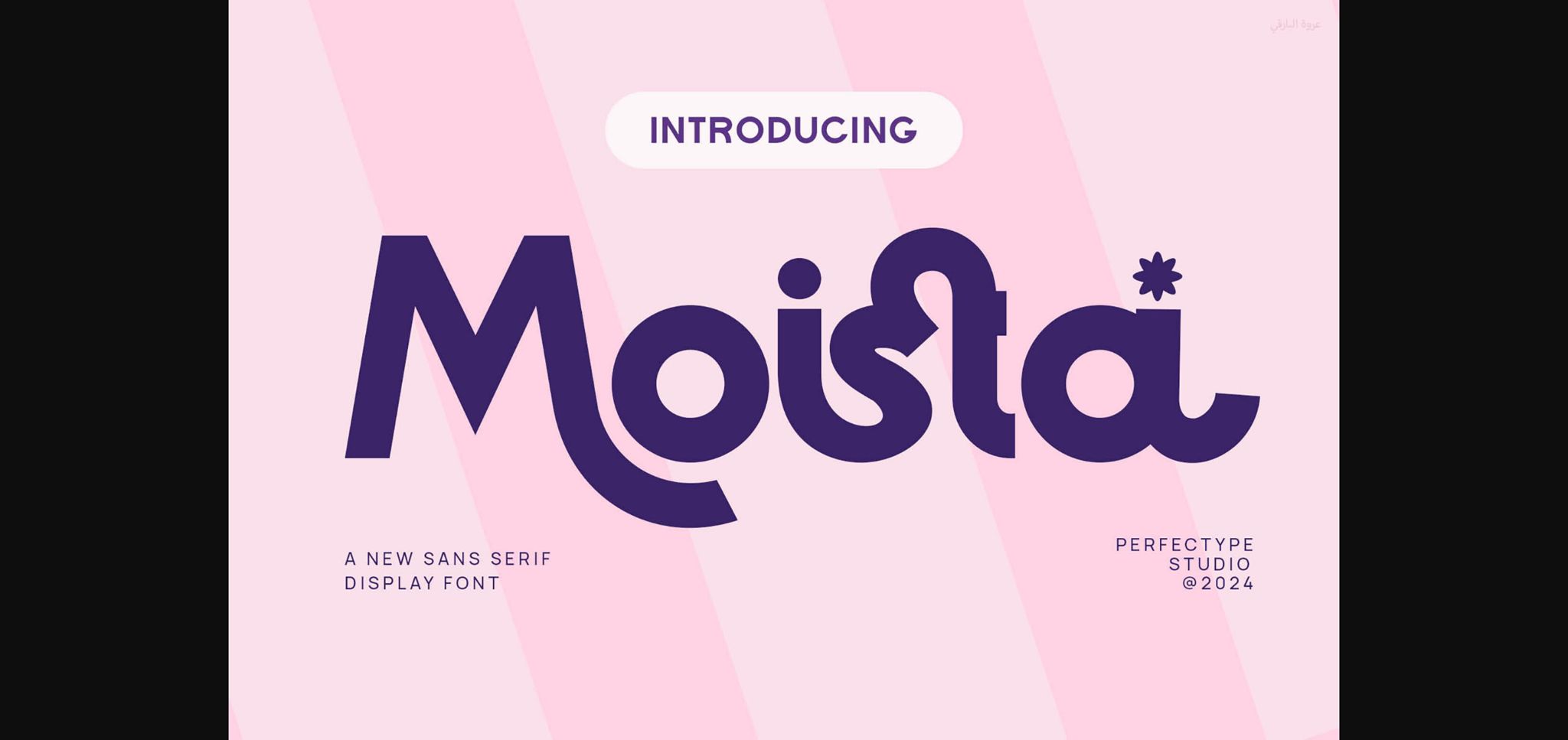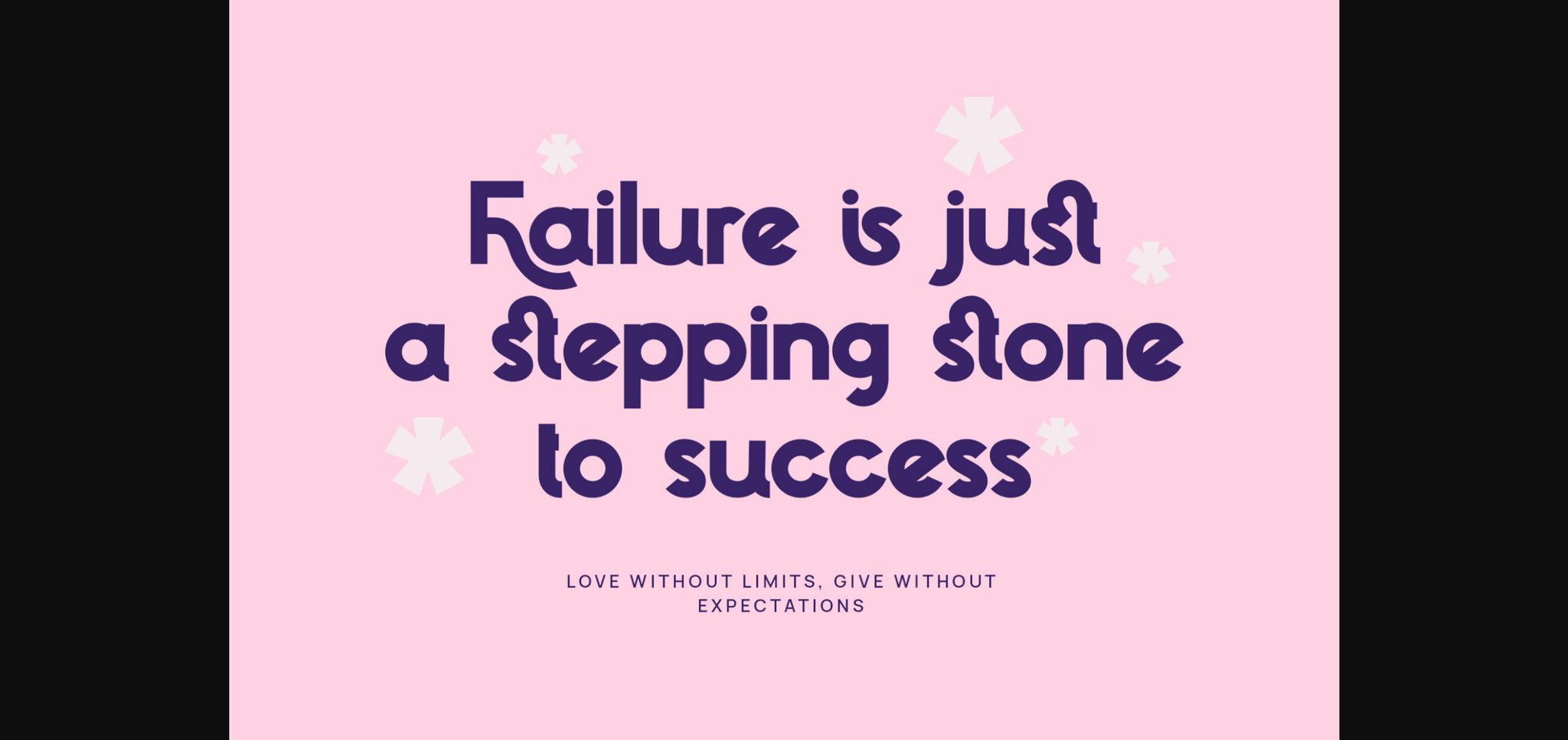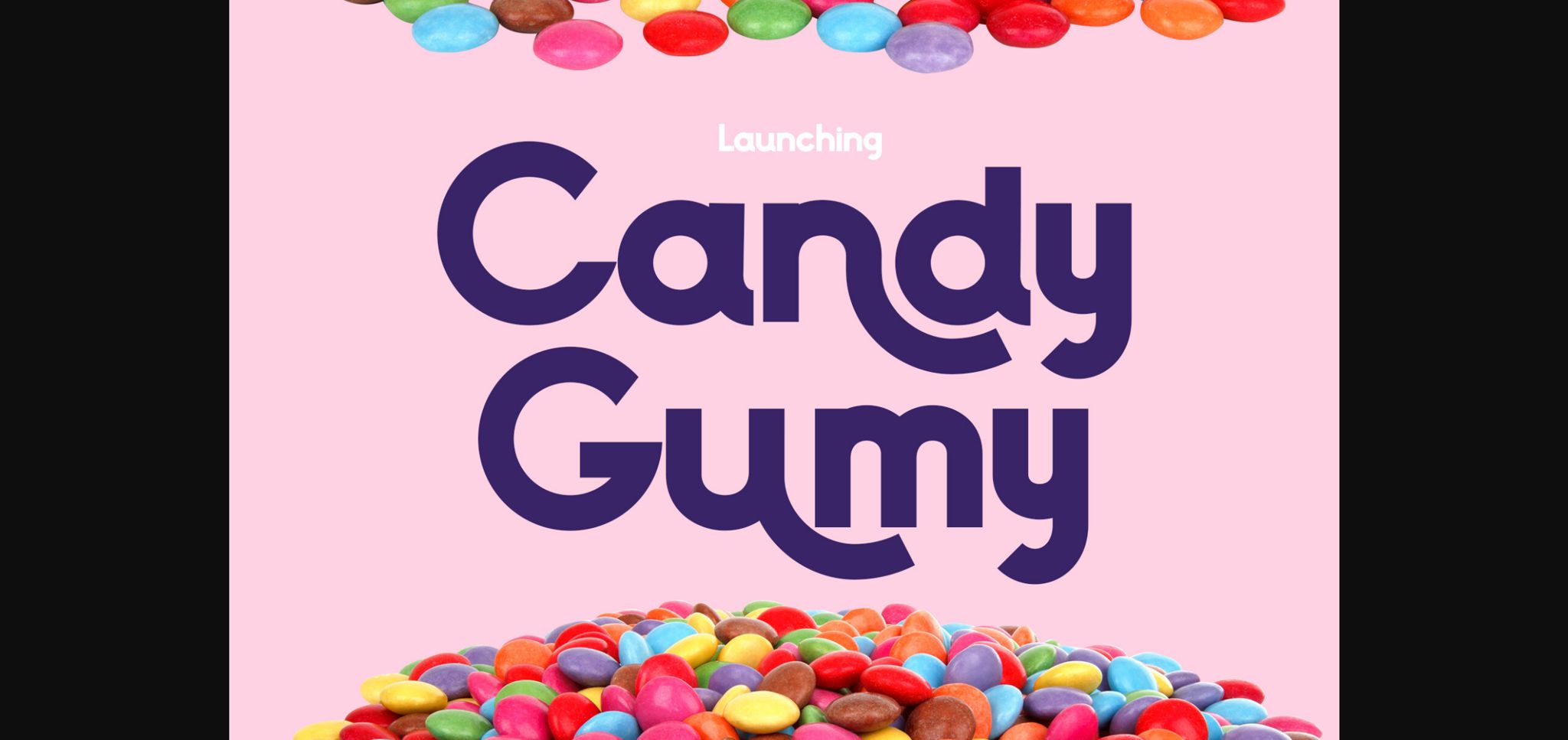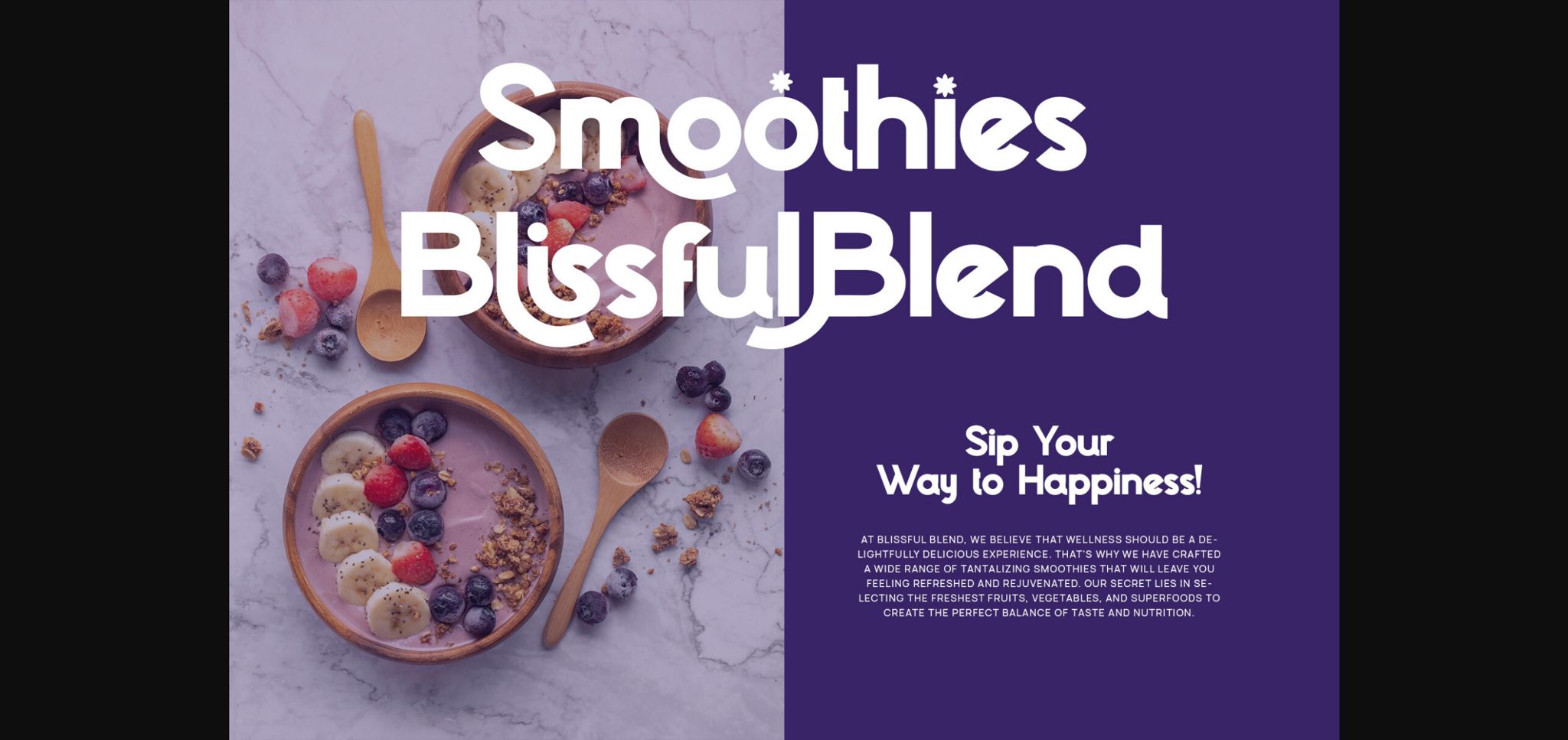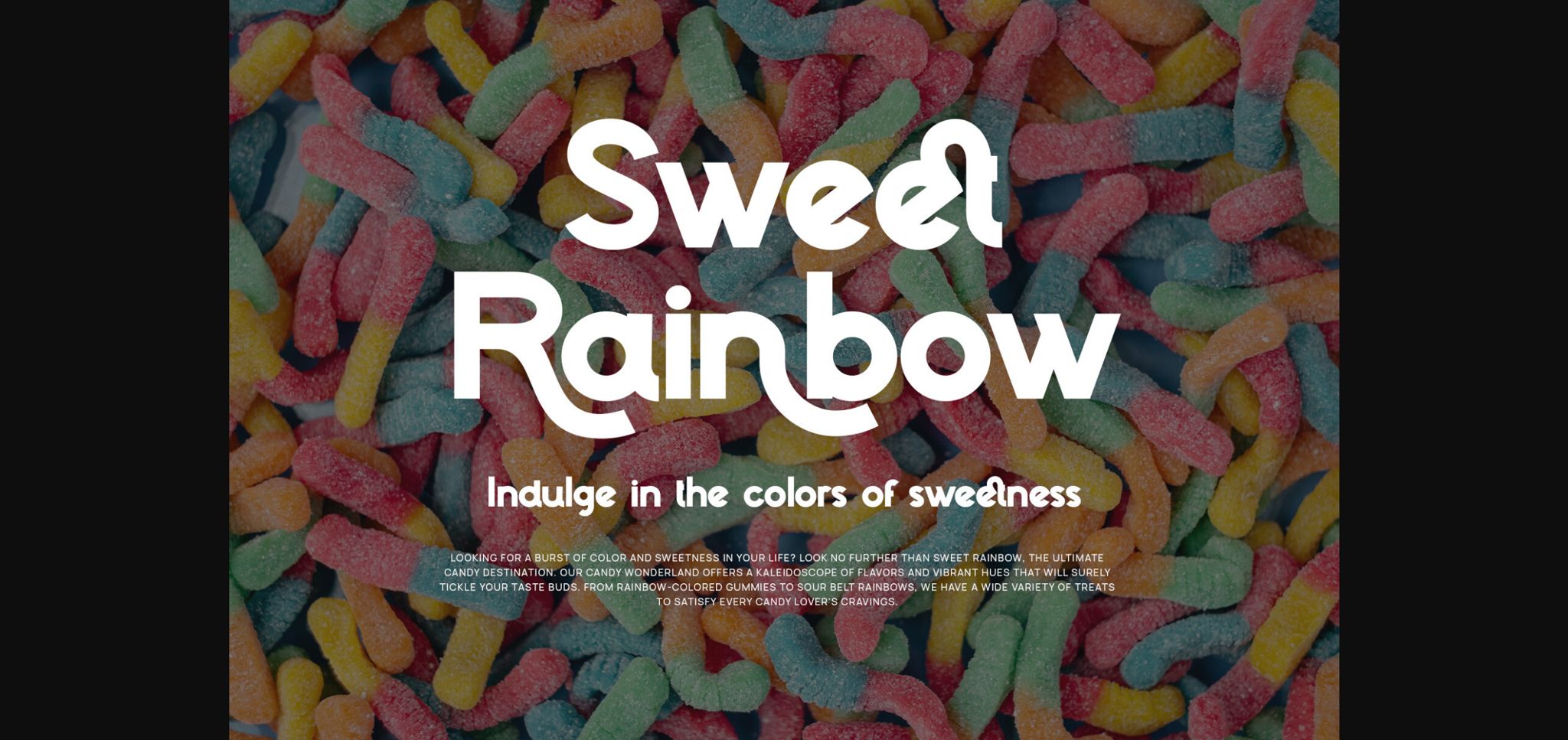
About Moista Font
Moista is a modern and trendy sans-serif typeface exuding contemporary flair. Its clean lines and balanced proportions give it a sleek and sophisticated appearance suitable for various design purposes. With its versatility and legibility, Moista adds a touch of elegance to any project or branding endeavor.